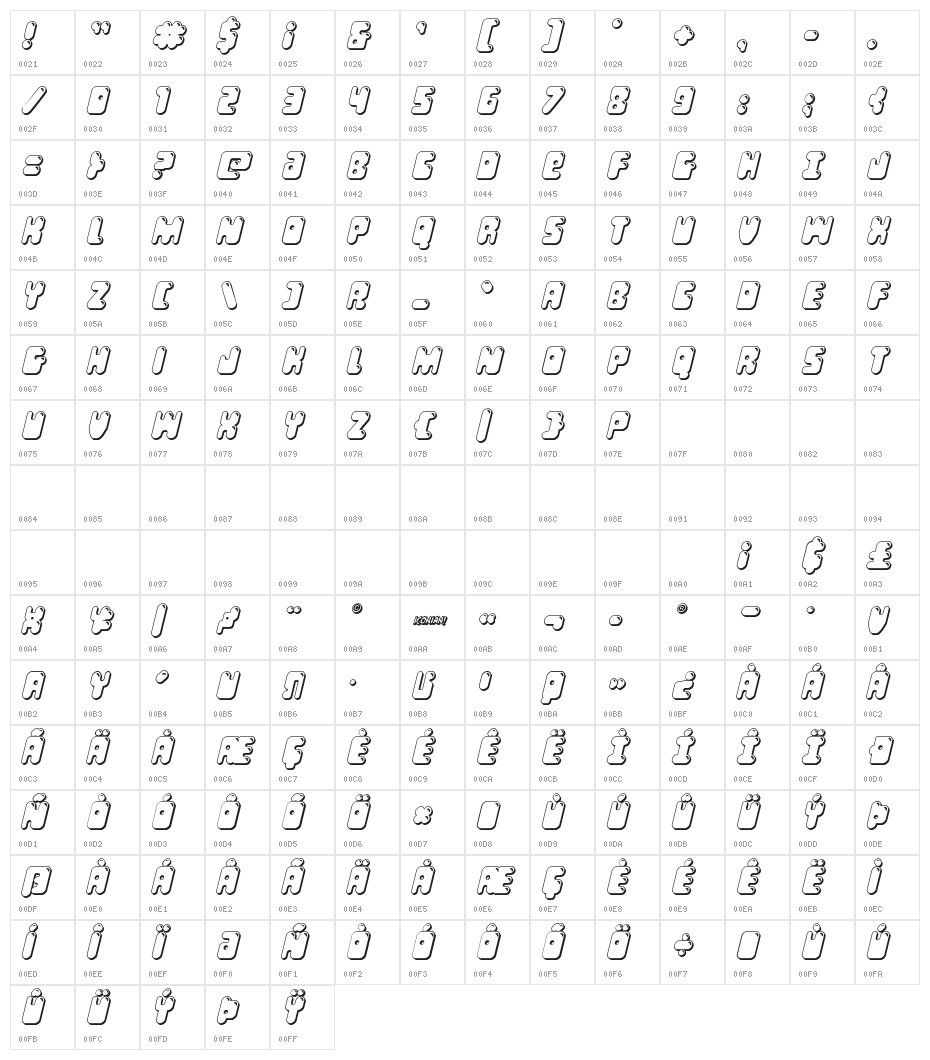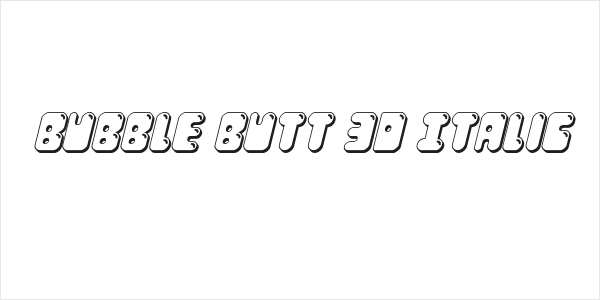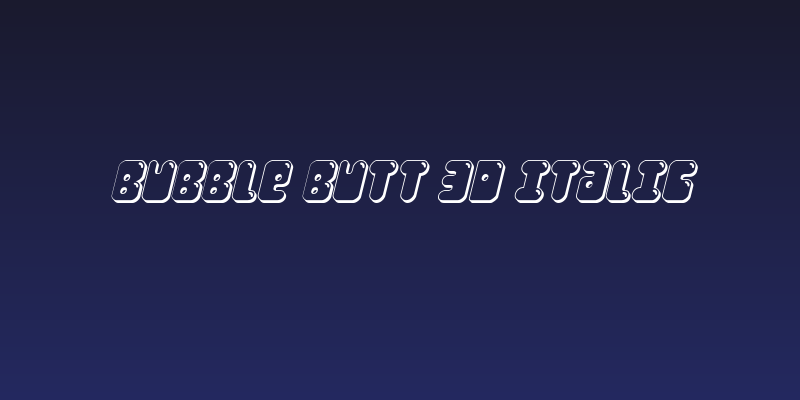
Bubble Butt 3D Italic Font
Bubble Butt 3D Italic Description
This playful and bold font features a three-dimensional, bubble-like appearance with a distinct italic slant. The characters are rounded and thick, giving them a soft, approachable feel. The 3D effect is achieved through a subtle shadowing that adds depth and dimension. Each letter and number is consistent in style, maintaining a uniform look across the entire set. The font includes a full range of uppercase and lowercase letters, numbers, and a variety of special characters, making it versatile for various applications. Its unique style is eye-catching and ideal for creative projects.